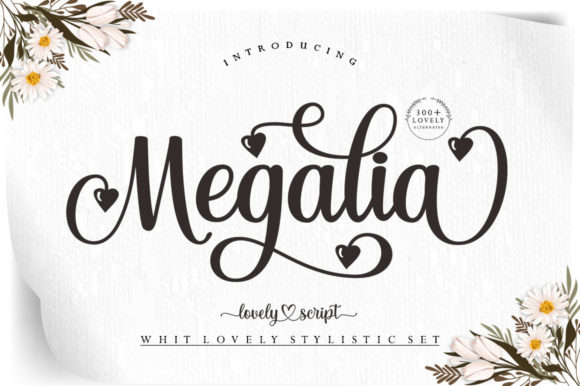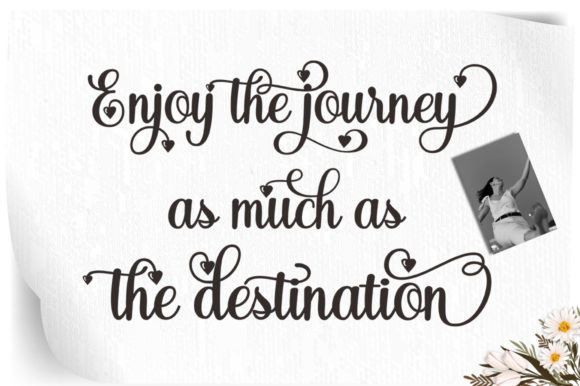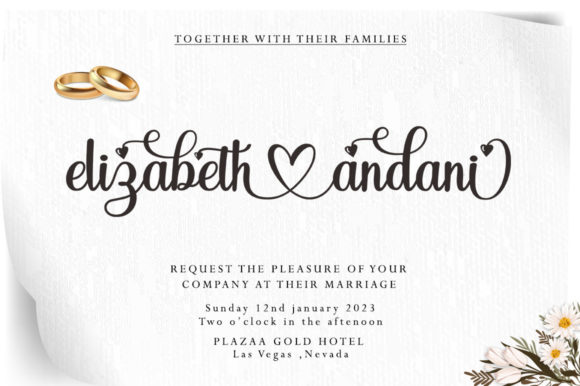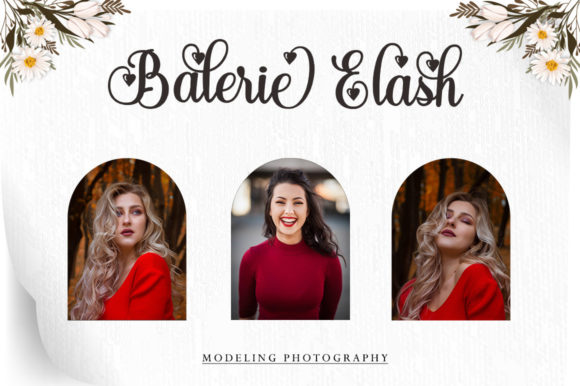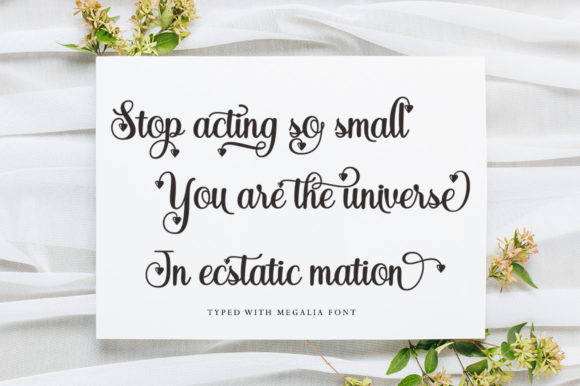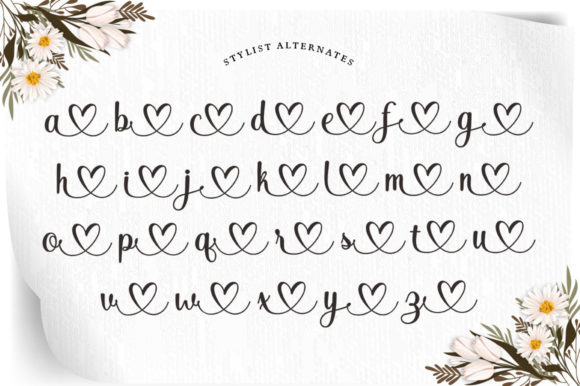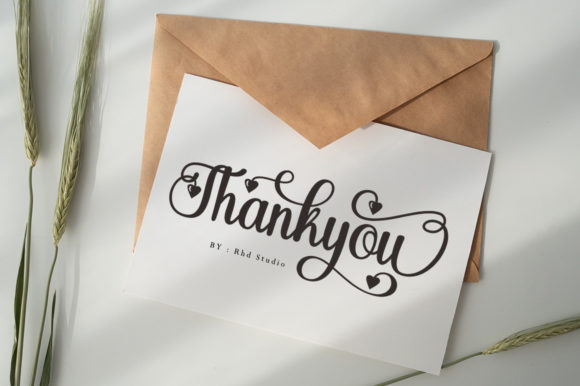
Megalia Font Font
About Megalia Font
Megalia, a beautiful handwritten font, is an excellent choice for a variety of design projects, showcasing its versatility and elegance. Perfect for branding endeavors, home appliance design, product packaging, business cards, and invitation cards, this font seamlessly blends style with functionality. Its aesthetic appeal makes it suitable for a wide range of applications, allowing you to infuse a touch of elegance into your creative works.
The font’s graceful handwritten script adds a personal and sophisticated touch to branding projects, ensuring a memorable and visually appealing representation for your business or product. Whether you’re designing packaging for home appliances or creating business cards, Megalia lends an air of refinement that enhances the overall perception of your brand.
Megalia’s versatility extends to its usability as a stylish text overlay on background images, providing a visually striking element for various applications. This makes it a suitable choice for social media graphics, promotional materials, or any design where a blend of elegance and simplicity is desired.
One notable feature of Megalia is its PUA encoding, enabling easy access to all glyphs and swashes. This feature enhances the font’s user-friendliness, allowing designers to effortlessly incorporate unique characters and decorative elements into their designs, further expanding creative possibilities.
In summary, Megalia is more than just a font; it’s a design asset that elevates the visual appeal of your projects. Its beauty and versatility make it a go-to option for those seeking a handwritten font that effortlessly combines elegance with functionality. Whether you’re working on branding, packaging, or various design applications, Megalia proves to be a valuable and stylish addition to your creative toolkit.